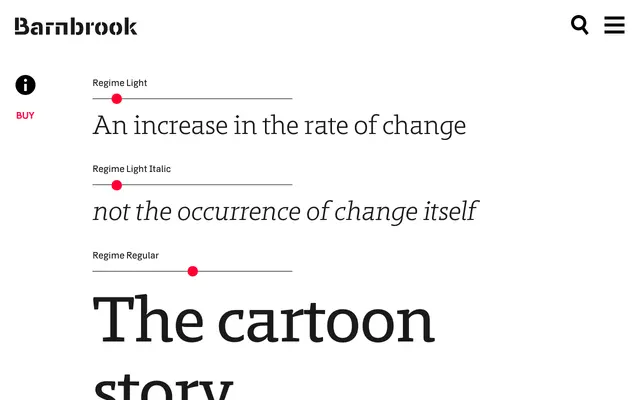
A slab serif with roots in the early 19th-century Egyptian tradition, running from light text weights through to an extreme ultra display cut inspired by woodblock poster types.
Drawing on Vincent Figgins's 1815 Antique as its historical touchstone, Regime takes the industrial-era slab serif and redraws it with contemporary detailing and a set of alternate characters. The weight range stretches from Light through to Ultra, the heaviest being a direct nod to the oversize woodblock types of 19th-century poster printing. The name references Britain's rise as an imperial power at the moment the slab serif form first appeared.
Regime is explicitly a slab serif, drawing on the 19th-century Egyptian slab tradition originating with Vincent Figgins, with contemporary detailing and extreme display weights referencing woodblock poster types.